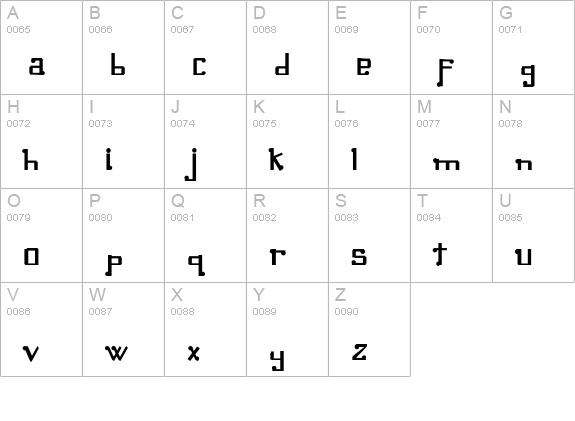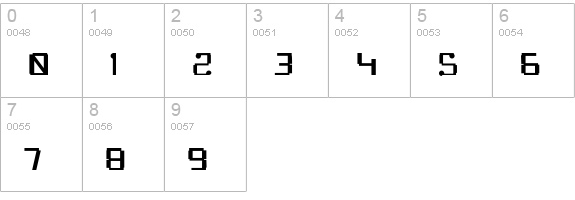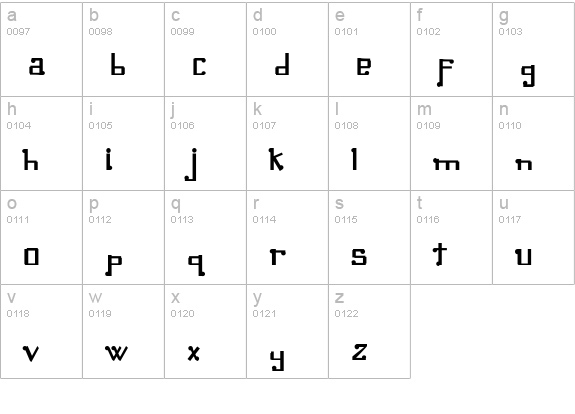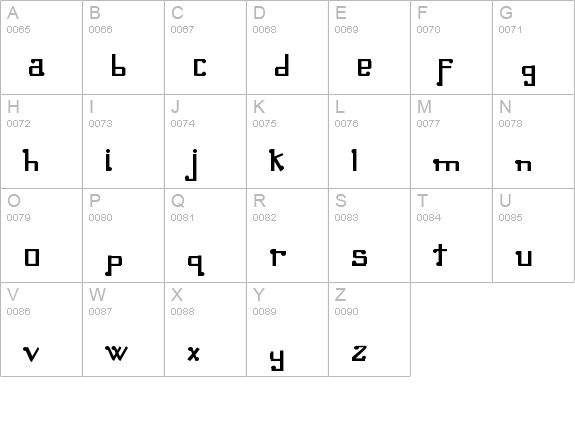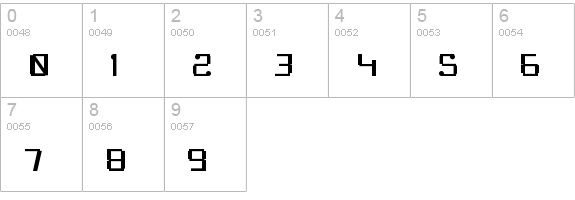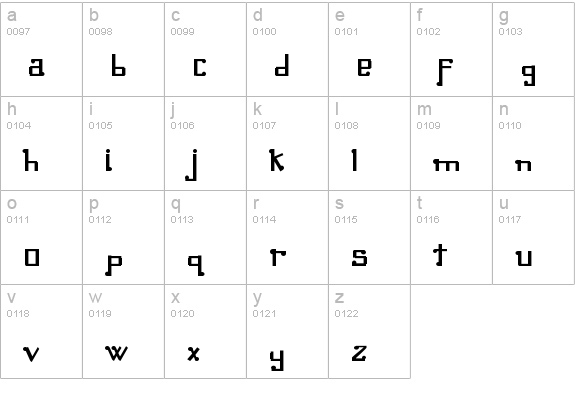
Omellons Bold Font Details
Omellons Bold is a strong, high-contrast variant in the Omellons typeface family \xE2\x80\x94 well suited to headlines, attention-grabbing titles, and strong calls-to-action.
Omellons Bold is a striking and impactful font that exudes confidence and modernity. With its bold and commanding presence, this font is perfect for making a statement in any design project. The strong and sturdy letterforms of Omellons Bold convey a sense of power and strength, making it an ideal choice for headlines, titles, and branding materials. What sets Omellons Bold apart is its versatility – it can be used in a variety of design contexts, from posters and banners to logos and packaging. Its clean and sleek aesthetic ensures that it remains legible and eye-catching, even at larger sizes. And the best part? Omellons Bold is completely free to download at FontsMarket.com. This means that you can easily access this powerful font and incorporate it into your design projects without any cost. So why wait? Download Omellons Bold today and add a touch of boldness to your designs!